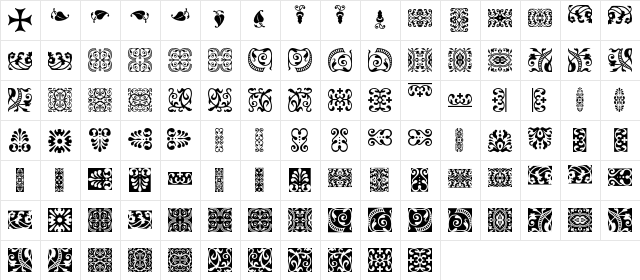
DTL Elzevir Ornaments Font Preview
DTL Elzevir Ornaments
Design Context for DTL Elzevir Typeface
DTL Elzevir brings ornamental detail and strong personality to headlines and identities, where visual impact matters more than quiet functionality.
Font Pairing: Pair with a clean neutral sans-serif for body copy to let DTL Elzevir's character lead without overwhelming the composition.
Pro Tip: Treat DTL Elzevir as the centrepiece of your typographic hierarchy. One strong heading set in a decorative face can carry an entire layout.